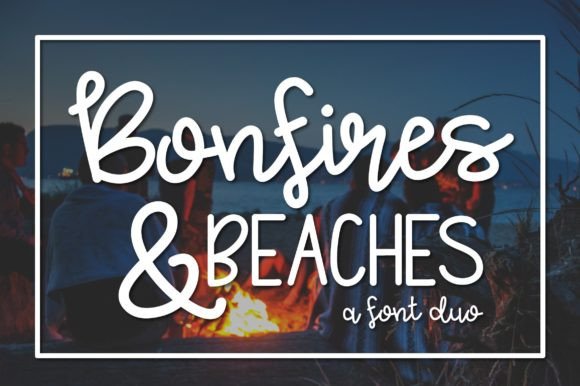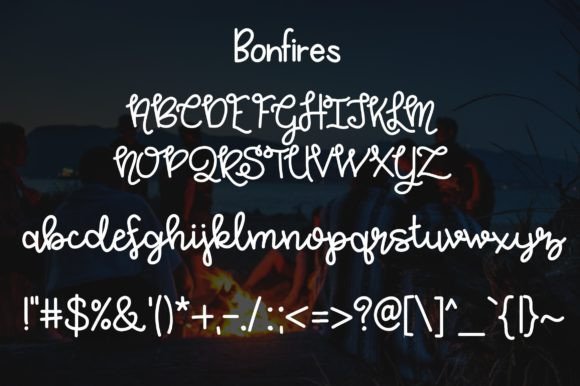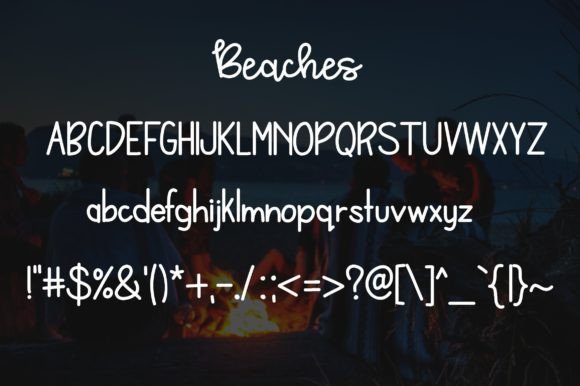
About Bonfires and Beaches Duo Font
Introducing the lively and vibrant font duo – Bonfires and Beaches, a perfect choice for your next project seeking a fun and festive vibe! This sans-serif font combo is tailor-made for summertime designs, party invitations, and anything that calls for a burst of personality. With its playful yet stylish letters, Bonfires and Beaches promises to infuse your project with a touch of warmth and character. So, why not ignite the summer spirit and set your designs ablaze with this hot new font duo?
Bonfires and Beaches is not your typical font duo; it’s a dynamic pairing that effortlessly blends playfulness with style. The sans-serif typeface brings a modern and clean aesthetic, while the combination of letters in both fonts exudes a sense of fun and energy.
This font duo is your go-to choice for capturing the essence of summer. Whether you’re working on party invitations, seasonal promotional materials, or anything related to the sun-soaked months, Bonfires and Beaches is designed to amplify the joy and vibrancy of your designs.
The playful yet stylish letters of Bonfires and Beaches make it versatile and suitable for a wide range of creative projects. Let your imagination run wild as you explore the potential of this font duo in bringing a lively and festive atmosphere to your work.
So, if you’re on the lookout for a font duo that encapsulates the spirit of summer, Bonfires and Beaches is the answer. Light up your designs with this dynamic duo and let the warmth and playfulness of the season shine through. It’s time to infuse your projects with the excitement of summer – Bonfires and Beaches will be your perfect companion on this creative journey!